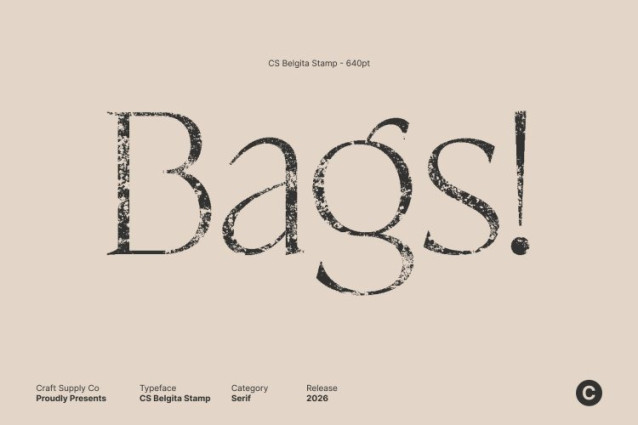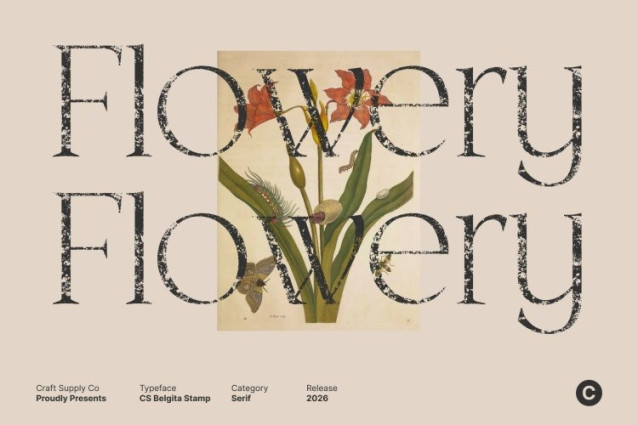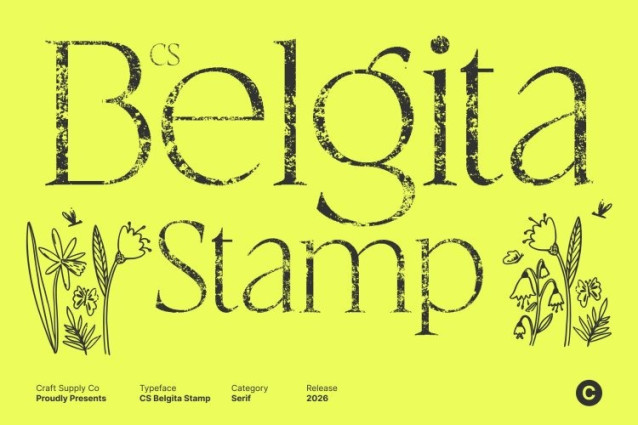
CS Belgita Stamp Font
CS Belgita Stamp Font This is an elegant serif font crafted with clean, slender letterforms and enhanced by a subtle stamp texture. Its precise construction and balanced proportions communicate refinement and confidence, while the stamped effect adds a soft vintage character and artistic depth. This fusion creates a typeface that feels elevated, expressive, and timeless.
Modern Sophistication with Aged Elegance
Rooted in classic serif principles, introduces a modern sensibility through slim strokes and restrained detailing. The added stamp texture brings gentle imperfections that recall traditional print and handcrafted techniques, allowing the font to feel warm and authentic without losing its contemporary clarity.
Refined Structure for Luxurious Layouts
The font’s slender lines and graceful rhythm create a polished flow across text. Its subtle contrast and stamped finish add character and visual interest while maintaining a clean, luxurious appearance. This balance makes it ideal for refined compositions that demand elegance with personality.
Perfect for Fashion, Editorial, and Premium Branding
Designed for fashion branding, editorials, posters, packaging, and high-end visual identities, this font excels in headlines, titles, and sophisticated typography. Its blend of modern elegance and vintage stamp texture enhances luxury campaigns and stylish layouts with timeless charm and confidence